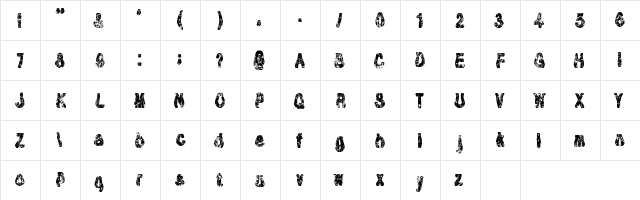
Tioem-Black-Distressed Regular
Design Context for Tioem-Black-Distressed Typeface
Tioem-Black-Distressed trades polish for personality, using distressed and eroded forms to bring grit and attitude to creative work.
Suited to punk-influenced zines, underground music branding, streetwear, and raw, anti-corporate design.
Pro Tip: Pair Tioem-Black-Distressed with intentionally raw or lo-fi design elements. Fighting against it with overly polished surroundings will undermine its personality.